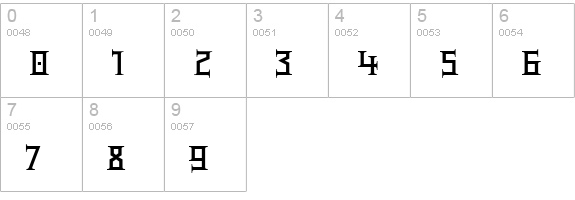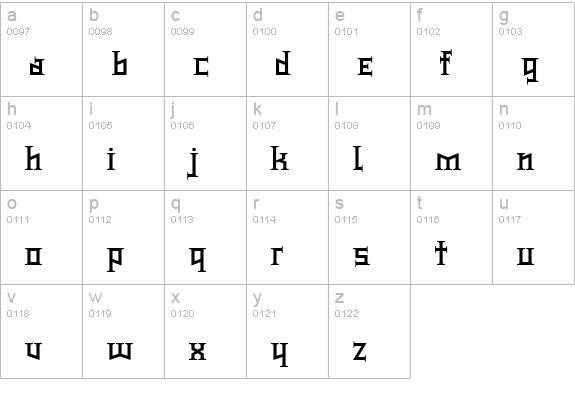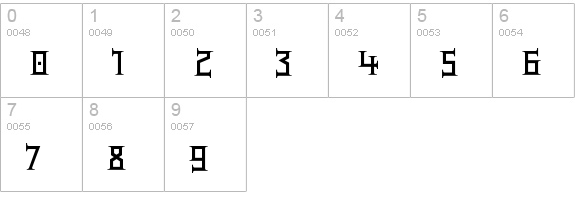
Type Knight Font Details
Type Knight font is a stunningly bold and versatile typeface that exudes strength and elegance. Its sharp, angular letterforms command attention and leave a lasting impression. This font is perfect for creating eye-catching headlines, captivating logos, and impactful designs. With its unique blend of modern and classic elements, Type Knight font effortlessly combines tradition with innovation. Its clean lines and geometric shapes give it a contemporary edge, while subtle details and subtle curves add a touch of sophistication. This font is truly a knight in shining armor, ready to take your designs to the next level. But what sets Type Knight font apart from the rest is that it is free. Yes, you read that right - this incredible font is freely available to download at FontsMarket.com. Whether you're a professional designer or a casual enthusiast, you can now access this remarkable font without any cost. This font not only offers exceptional quality and aesthetic appeal, but it also offers accessibility and affordability. It empowers designers of all levels to create stunning visuals without breaking the bank. Now, you can unleash your creativity and elevate your designs without any limitations. Type Knight font is the perfect choice for those who want to make a bold statement and leave a lasting impression. Its versatility and elegance make it suitable for a wide range of projects, from branding and advertising to packaging and editorial design. So why wait? Download Type Knight font today and embark on a typographic adventure like no other.